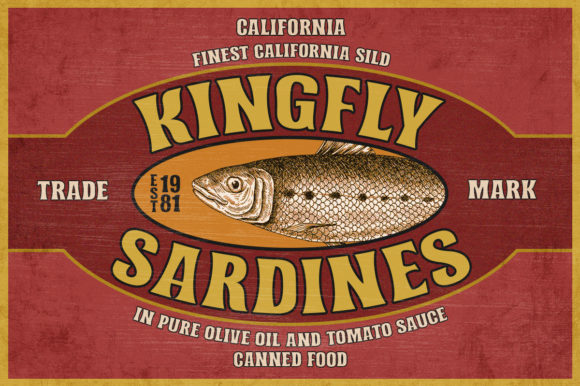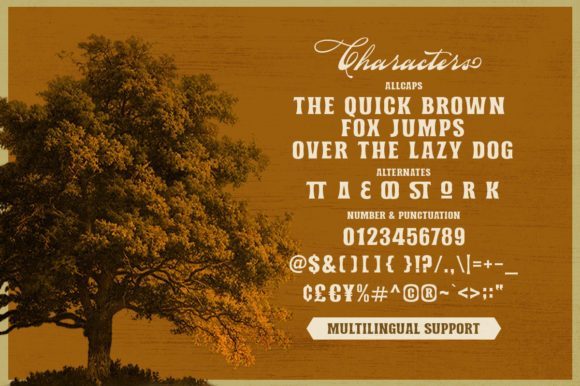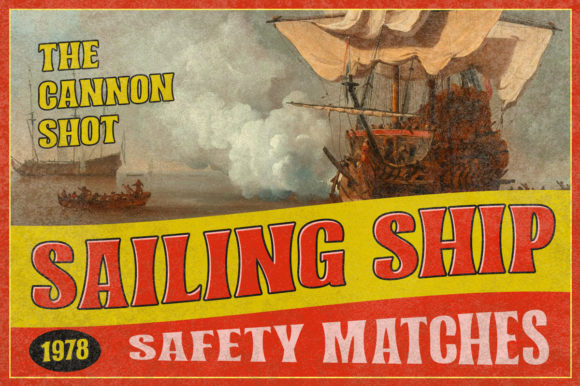
Introduction to Norvin Font Font
Fonts play a crucial role in design, and the Norvin Font font is a typeface that brings both character and versatility to any project. Whether you’re working on a branding project, a website, or a print design, the Norvin Font font offers a unique style that can elevate your work.
Norvin is a strong and bold display font with a vintage look and feel.
This font is perfectly made for logos, headlines, signage, and other various formal projects such as invitations, labels, magazines, books, greeting/wedding cards, packaging, fashion, make-up, stationery, novels, labels, etc .
Key Features of Norvin Font Font
Why Choose Norvin Font Font?
The Norvin Font font is more than just a typeface – it’s a design tool that helps you communicate your message with style and clarity. Its unique character set and versatile design make it suitable for a wide range of applications, from elegant invitations to bold headlines.
With its carefully crafted letterforms and balanced proportions, the Norvin Font font ensures readability and visual appeal across all mediums.
What makes Norvin Font font special?
The Norvin Font font stands out with its unique design, exceptional readability, and versatility across various design applications.